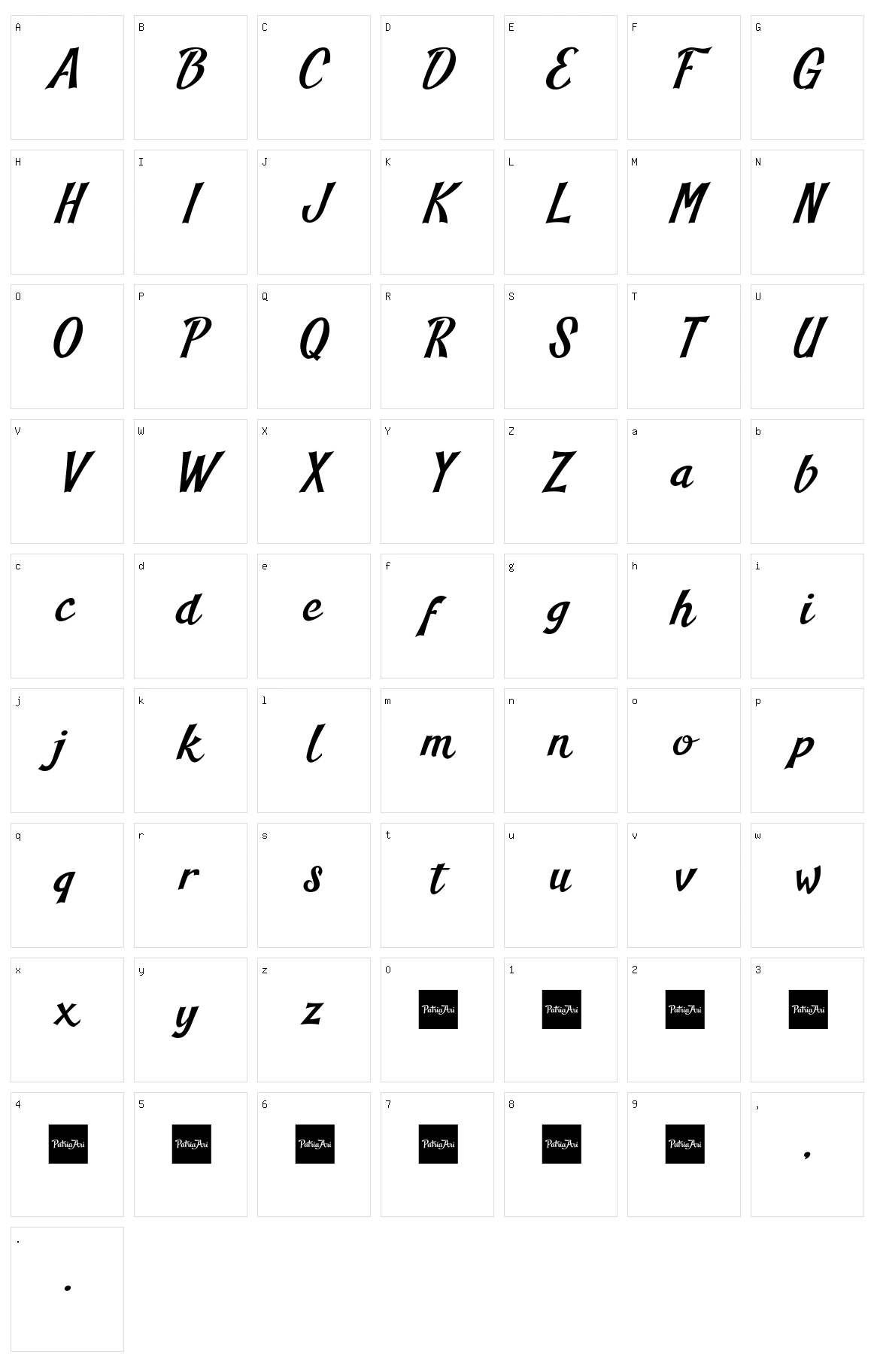
The free font Blankeny Script is carefully designed by Patria Ari Typestudio, showcasing a thoughtful balance of creativity and usability and falls under the Old-School font style. When you download the ZIP file, it contains only 2474.53 KB of font files, making it lightweight and quick to download. Please review the license details below to understand permitted usage and distribution rights. If license information is not available, we recommend using this font for personal projects only or contacting the author directly for commercial usage permissions.